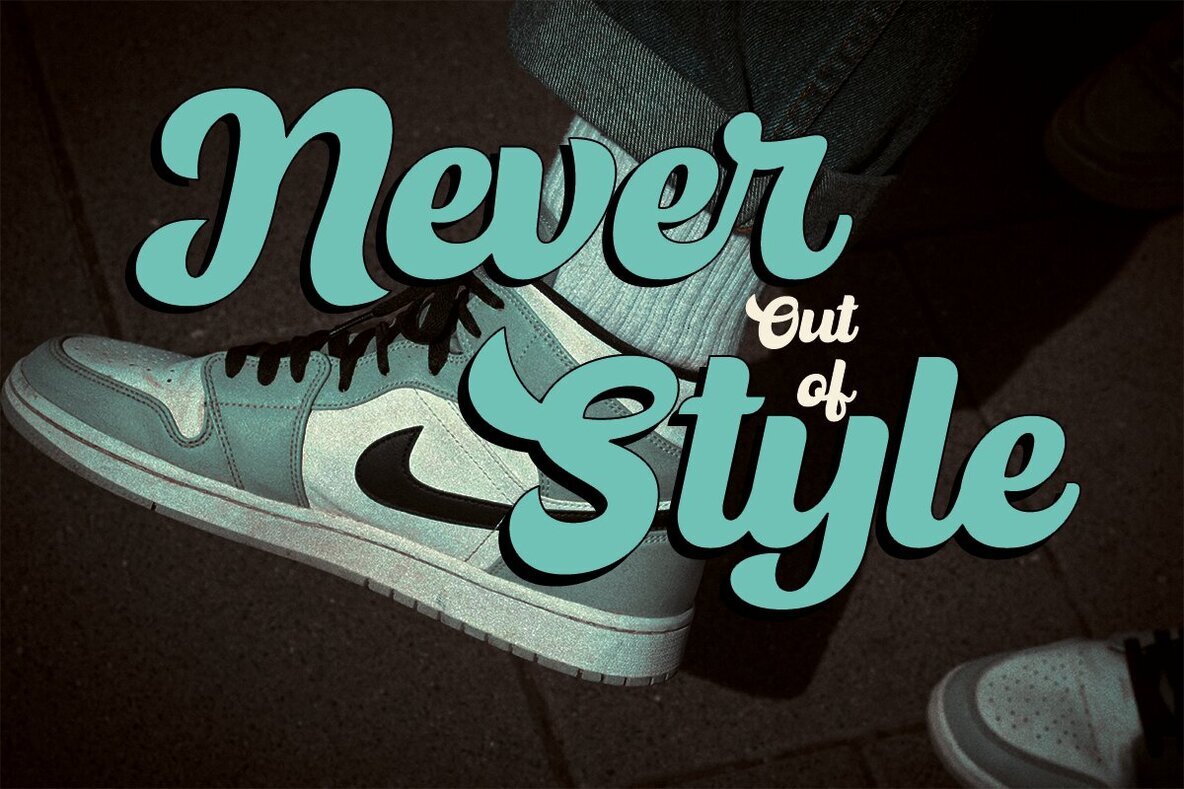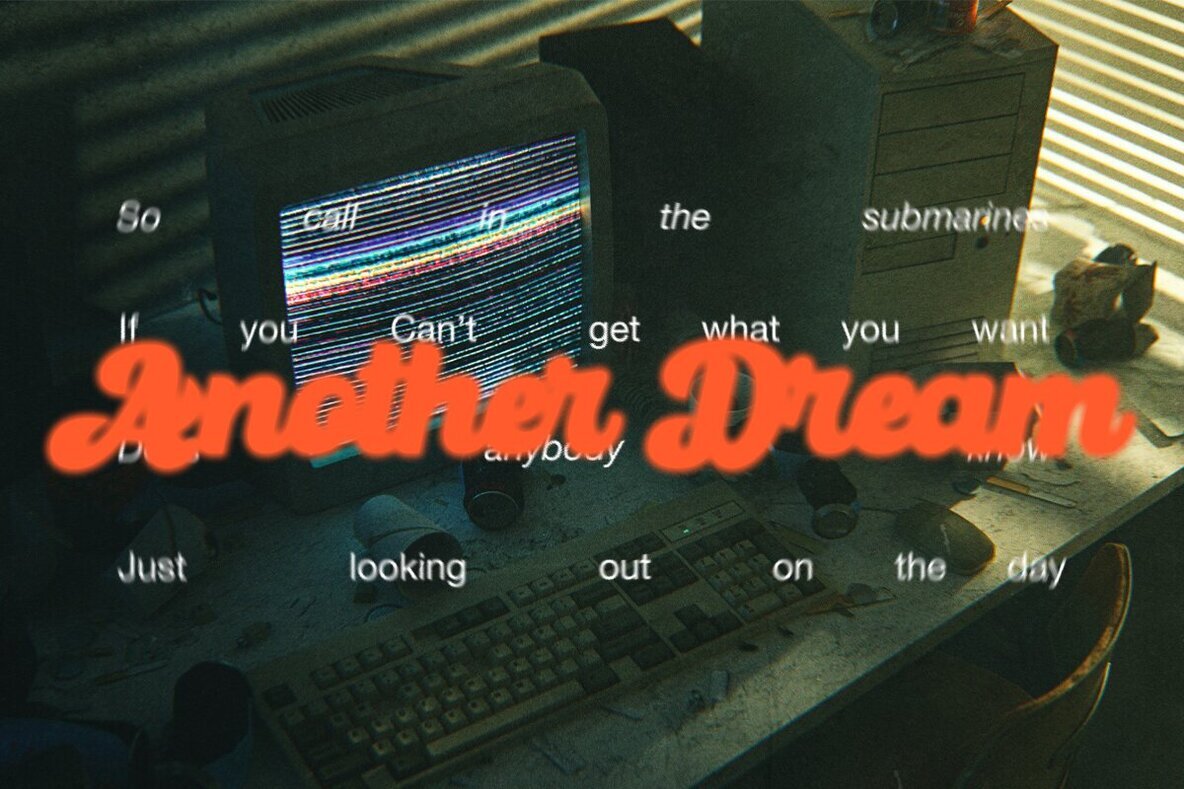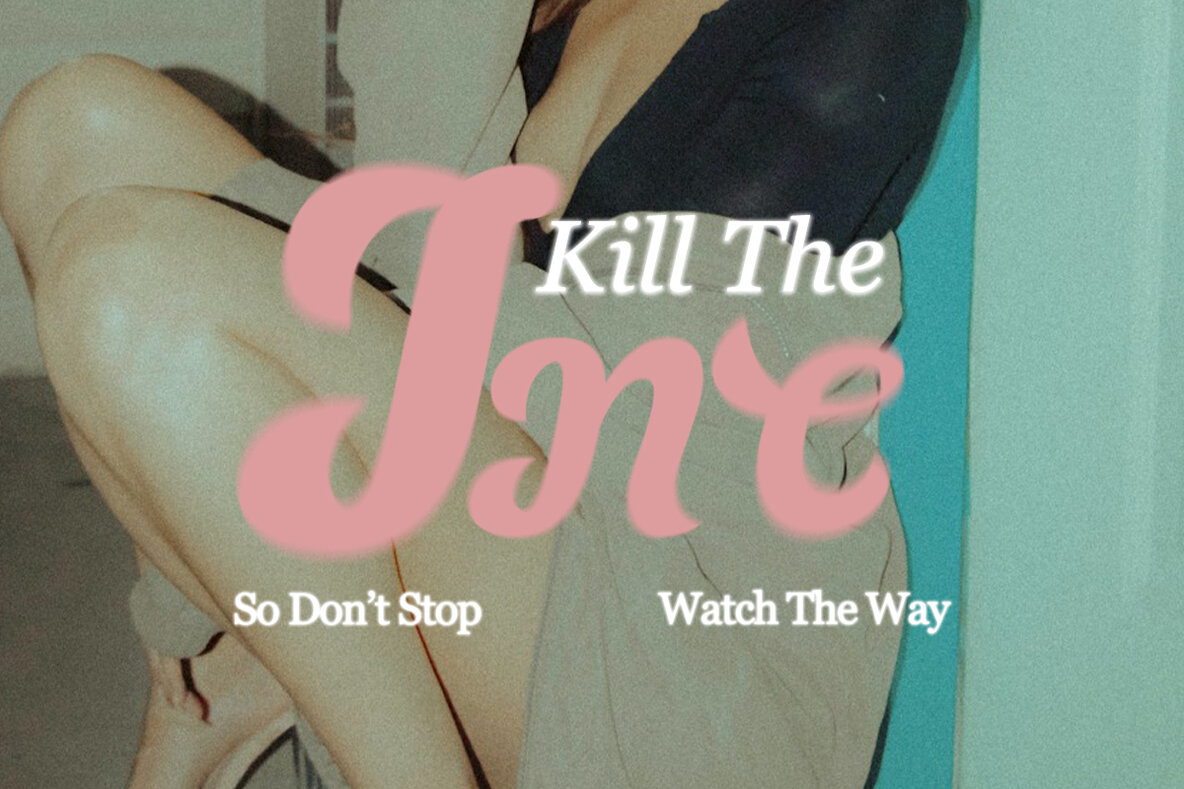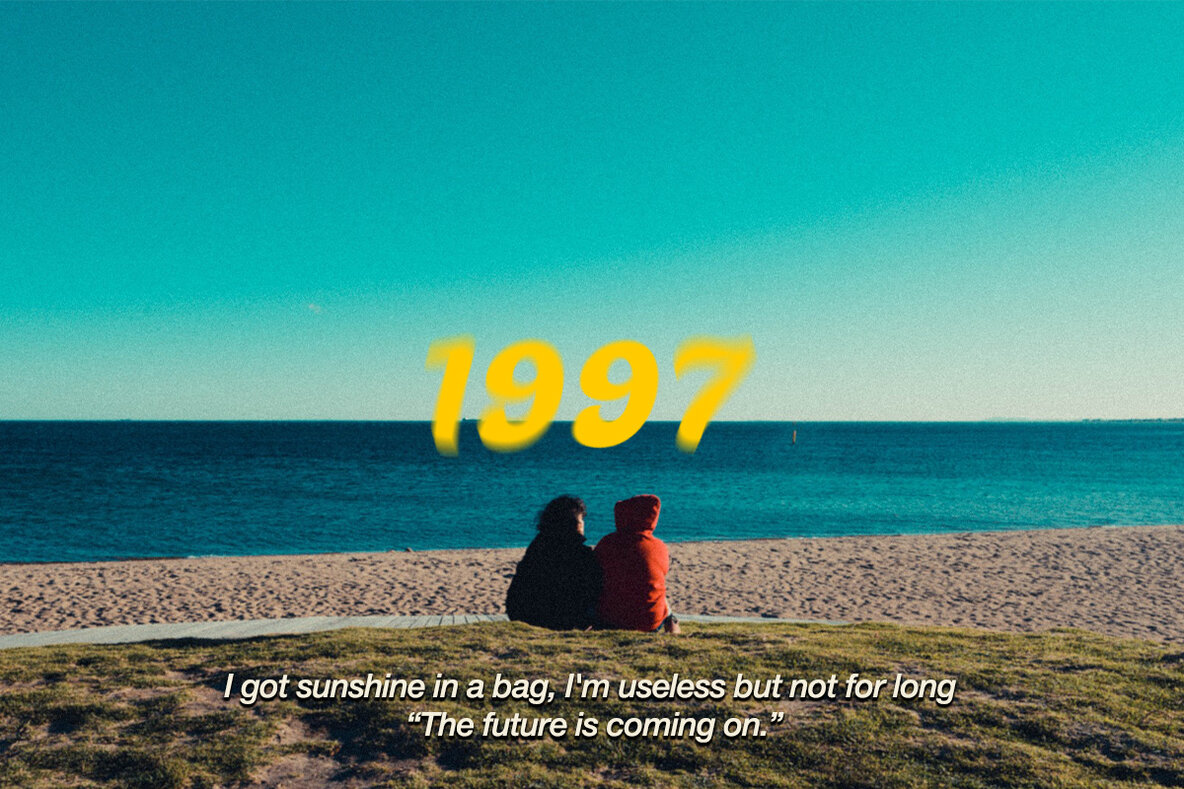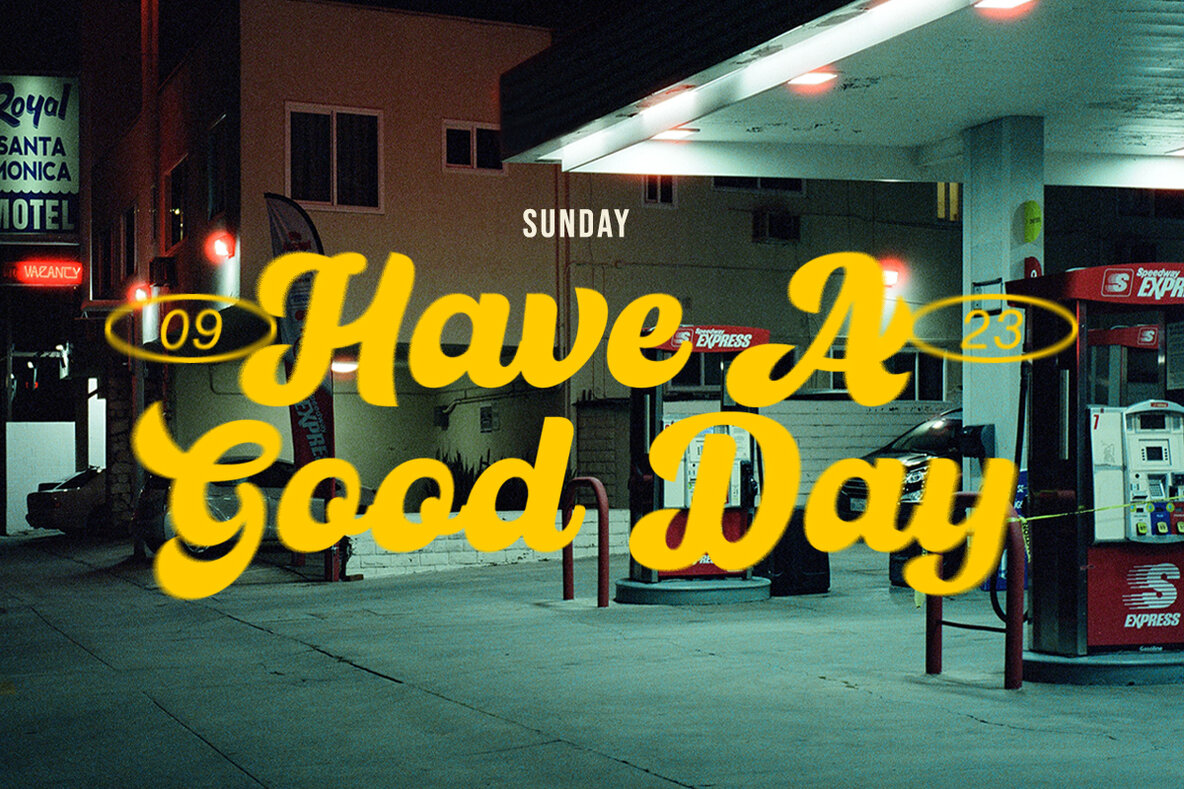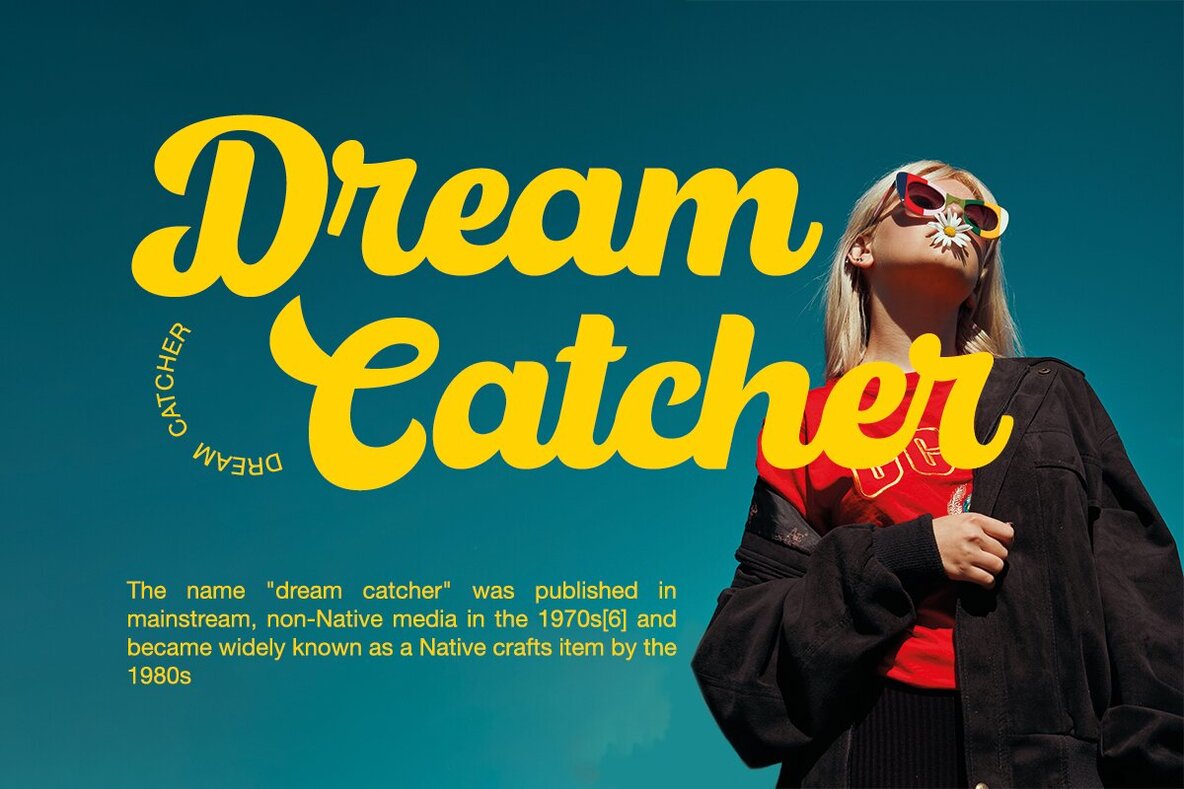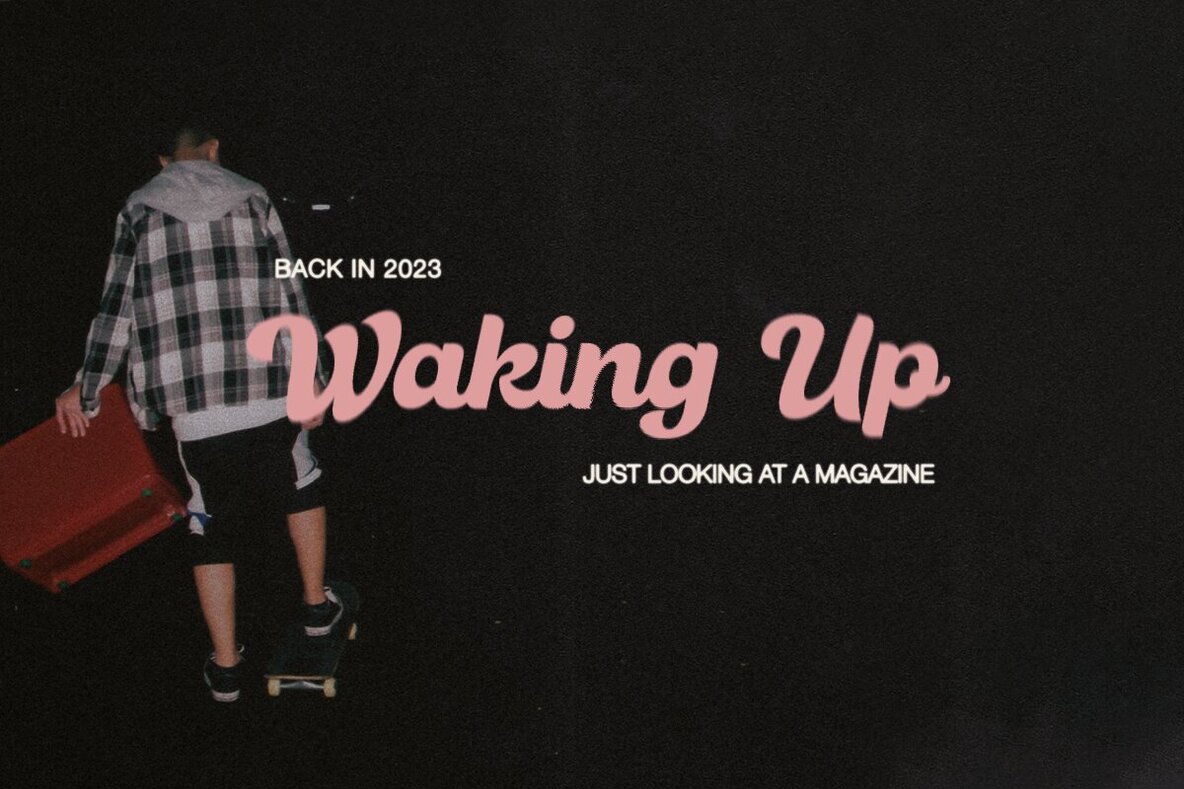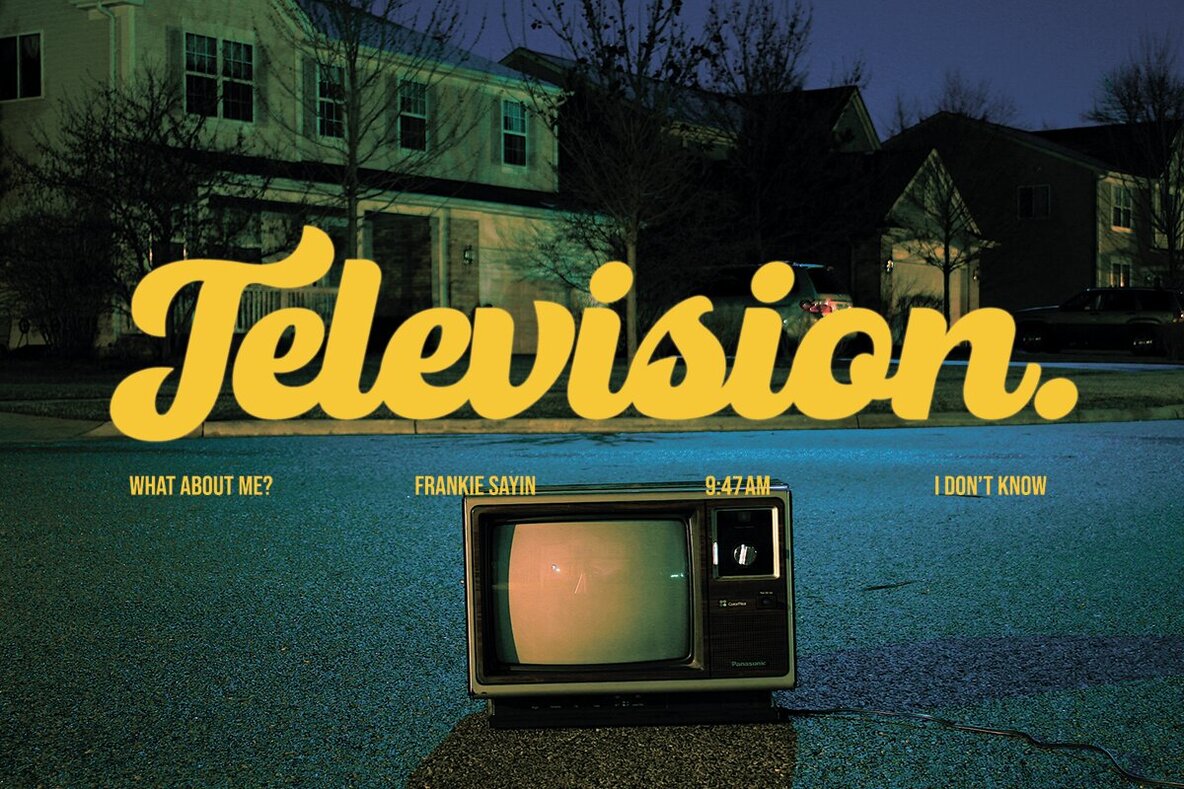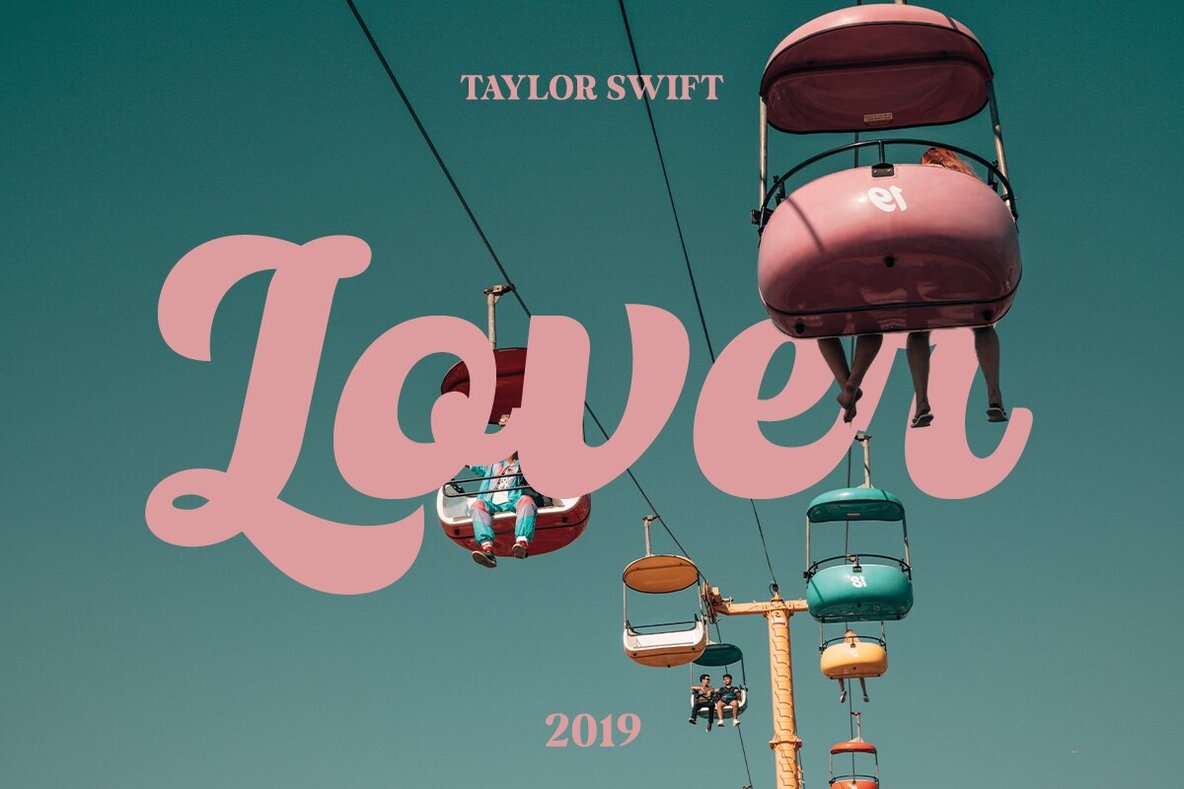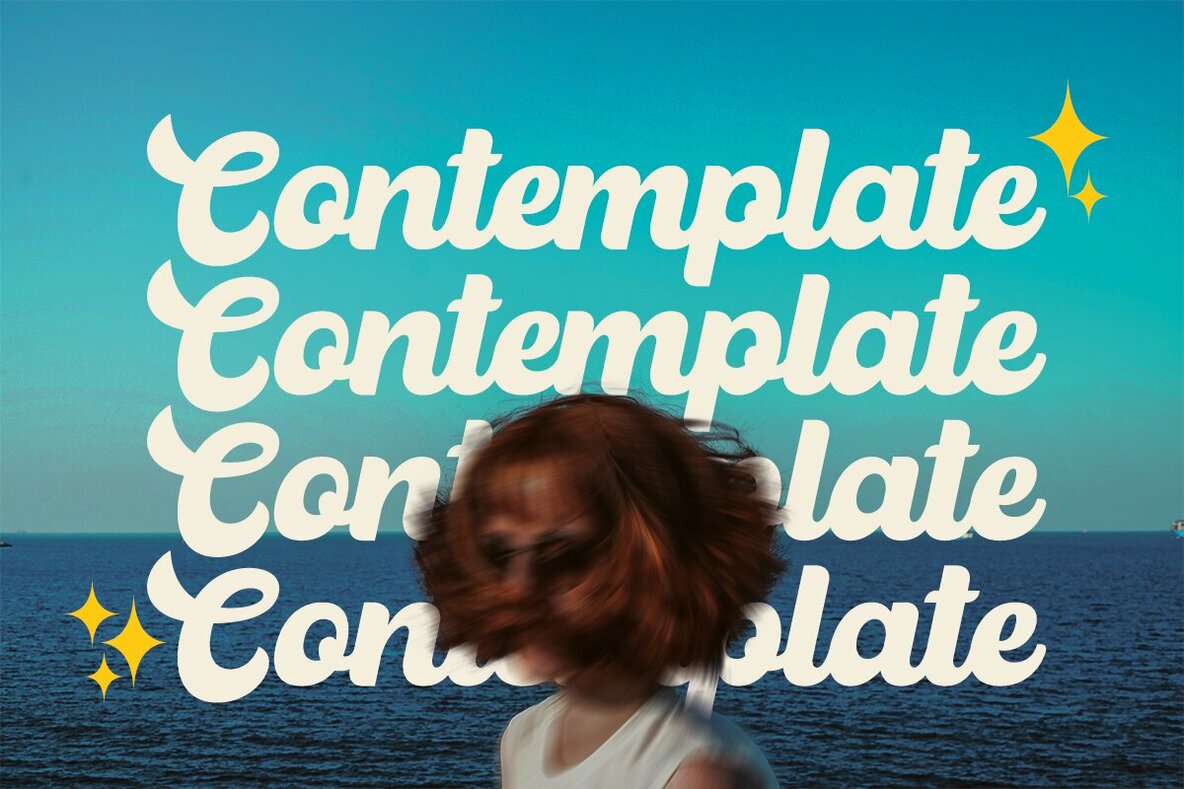
Saundrayam Font
Saundrayam Regular
The essence of creativity is innovation, and within the realm of graphic design, that innovation is often presented through one's choice in typography. Enter Saundrayam, a meticulously crafted Retro Display Font that caters to a variety of design needs. Conceptualized and curated by renowned designer Ragamkata, Saundrayam is more than just a font - it's an aesthetic statement. With its stylishly nostalgic appeal, Saundrayam serves as the answer for a plethora of design projects. Whether it's for the masthead of an edgy magazine, the logo of your next enterprise, or that perfect look for your t-shirt line, this font’s versatility will astonish you. Furthermore, Saundrayam stands strong in business cards, book covers, wedding invitations, Instagram story posts, greeting cards, and more. Its unique presentation provides an excellent balance between traditional style and modern appeal, making Saundrayam not just another typeface but a powerful tool in any graphic designer’s toolbox.Unlock your Aesthetic Potential with Saundrayam: Your New Favorite Retro Display Font